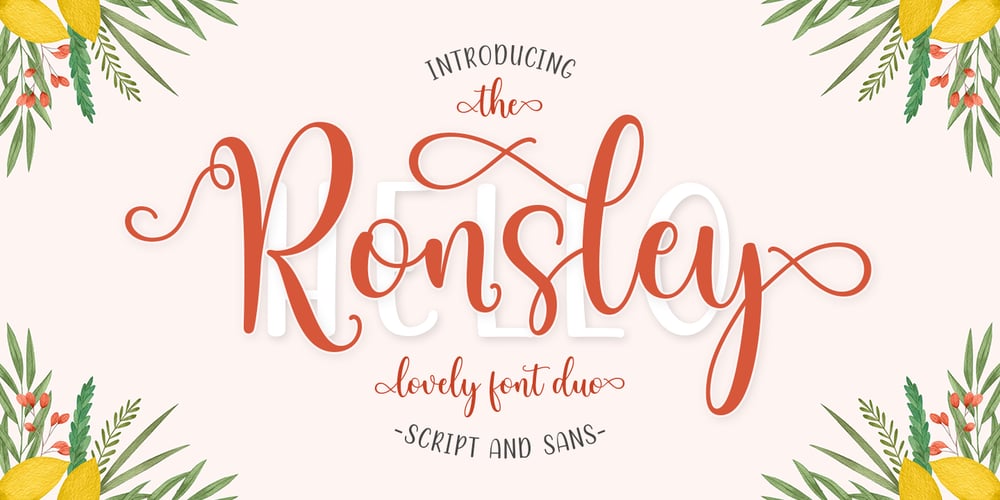
Ronsley Font Duo Font Family was designed by Muammar Kadafi and published by Attract Studio. Ronsley Font Duo contains 2 styles and family package options. Ronsley Font Duo is a hand-drawn font with a modern look. This Ronsley Font Duo is perfect for any modern project including branding designs, logos, invitations, wedding decorations, website designs, instagram, business cards and more!You can access this easily in most programs. Please check to make sure you know how to access the alternatives.Thank you!